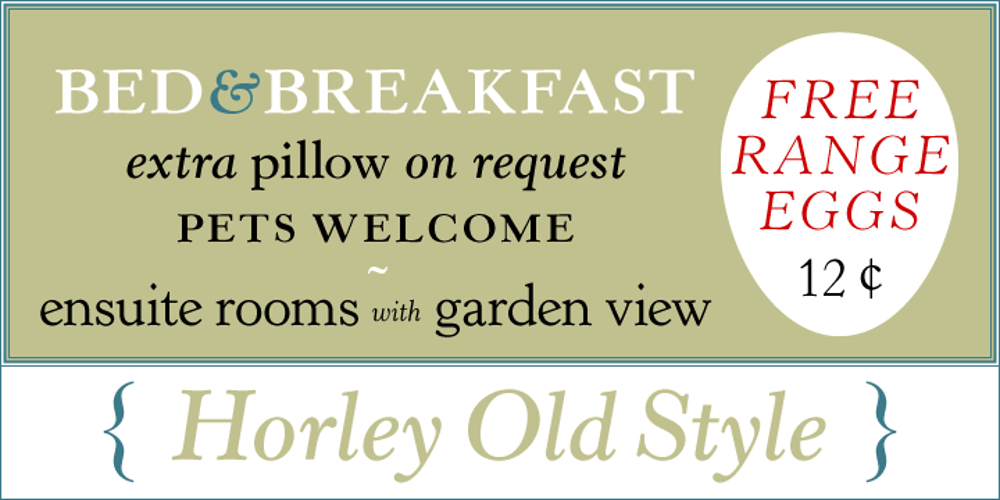
Horley Old Style Font Family was designed by Robert Norton and published by Monotype. Horley Old Style contains 8 styles and family package options. Twenties nostalgic oldstyle revival supervised by F.H. Pierpont at Monotype with echoes of Jenson, Caslon, and Goudy.